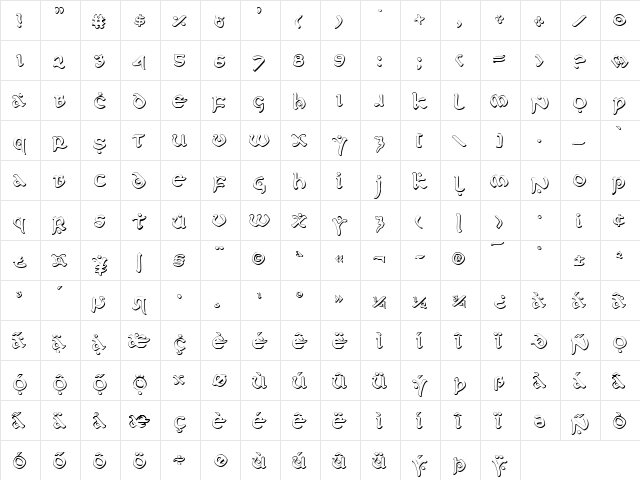
First Order Shadow Shadow
Design Context for First Order Shadow Typeface
First Order Shadow is built around its visual character rather than neutral utility — its distinctive forms are designed to make an impression at display sizes.
Font Pairing: Pair with a clean neutral sans-serif for body copy to let First Order Shadow's character lead without overwhelming the composition.
Pro Tip: Use First Order Shadow exclusively at display sizes — it was designed to be seen, not read at length. Let a neutral companion handle body copy.